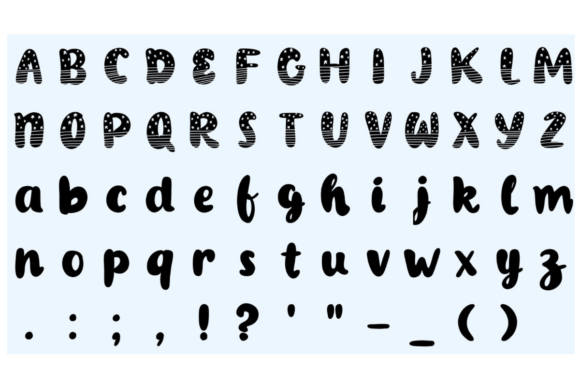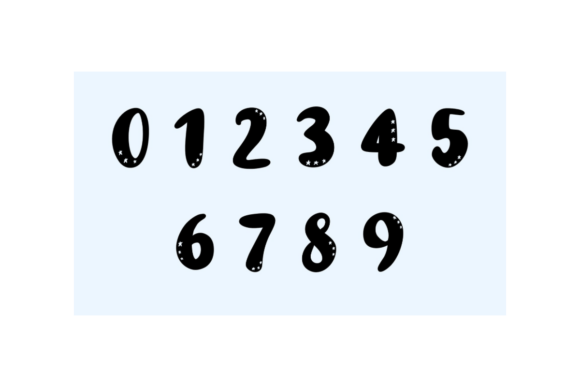
Unfurl the Spirit of Patriotism: Introducing the American Flag Font
As a designer, there’s something special about being asked to create a project that sparks joy and pride. Maybe it’s a 4th of July celebration, a patriotic event, or simply a design that needs to represent the American spirit. Whatever the occasion, you know exactly how to get started – with a bold, eye-catching design that makes a statement.
That’s where the American Flag Font comes in – a unique decorative font that brings the iconic American flag design to life. This font is perfect for projects that require a bold and expressive representation of the United States, making it ideal for creating standout designs for national holidays, events, and more. Whether you’re designing for the 4th of July or any project that needs a touch of American pride, this font will bring your creative vision to life.
American Flag Font Key Features
- Unique Characteristics: The American Flag Font features a unique design that incorporates the colors and patterns of the American flag, making it a distinctive and recognizable font.
- Style: The font has a bold and striking style, with thick and thin lines that evoke the feeling of a flag waving in the wind.
- Usage: The American Flag Font is suitable for use in various contexts, including logos, graphics, and text-based designs, where a bold and eye-catching font is desired.
Design Review: American Flag Font
Overall, I think the American Flag Font is a unique and eye-catching option for designers. ✨ It’s definitely a conversation starter and can add a bold touch to any design project.
Here are some things that work well with this font:
- ✨ Uniqueness: The American Flag Font is unlike any other font I’ve seen, making it perfect for designers who want to stand out.
- ✨ Bold and attention-grabbing: The font’s bold and colorful design is sure to grab attention and make your design pop.
- ✨ Versatility: The font can be used in a variety of design projects, from logos to posters to social media graphics.
- ⚠️ Limited legibility: The font’s bold design can make it difficult to read, especially at smaller font sizes.
- ⚠️ Limited customization options: The font is quite bold and colorful, which can limit the amount of customization you can do.
- ⚠️ Overuse: The font’s bold and patriotic design can make it feel overused or cliché if not used carefully.
Overall, I think the American Flag Font is a fun and bold option for designers who want to add a little excitement to their projects. Just be sure to use it thoughtfully and in moderation.
Practical Application Guide: American Flag Font
The American Flag Font is a versatile font that can be used in a variety of settings, including patriotic events, holiday decorations, and graphic designs. Some common use cases include:
- Patriotic events and celebrations
- Holiday decorations and gift tags
- Graphic designs and posters
- Wedding and event invitations
When using the American Flag Font, be sure to adjust the font size and color to ensure it is legible and visually appealing.